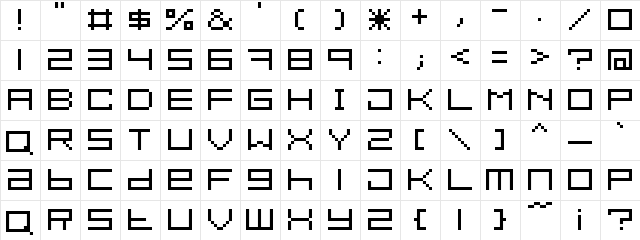
PXLXCT Regular
Design Context for PXLXCT Typeface
PXLXCT is a composed and adaptable typeface that performs quietly and consistently across a wide range of design contexts.